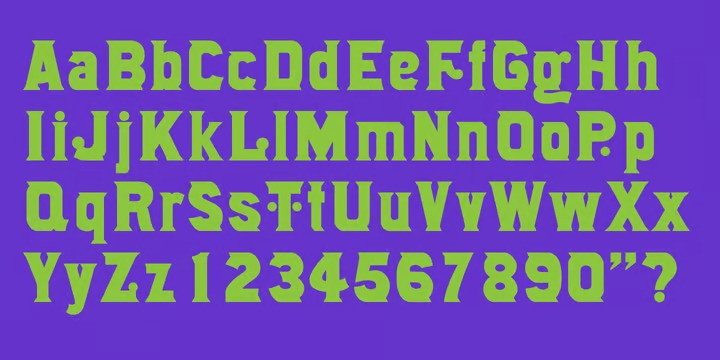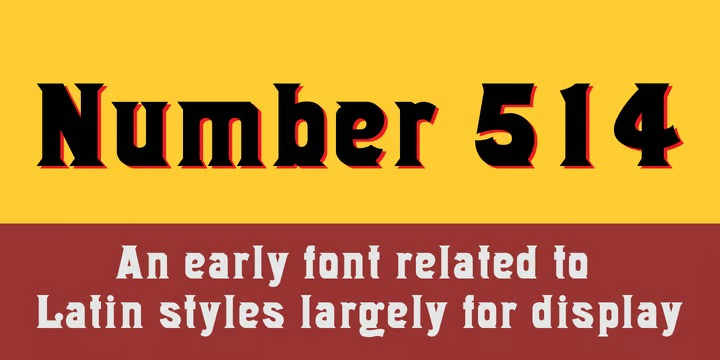
Number514 Font
Number 514 Family Font. An early serif font, primarily for display, involving a triangular Latin serif typeface, with unusual decorative elements.